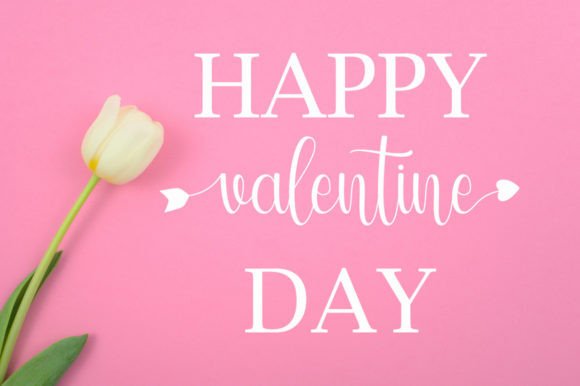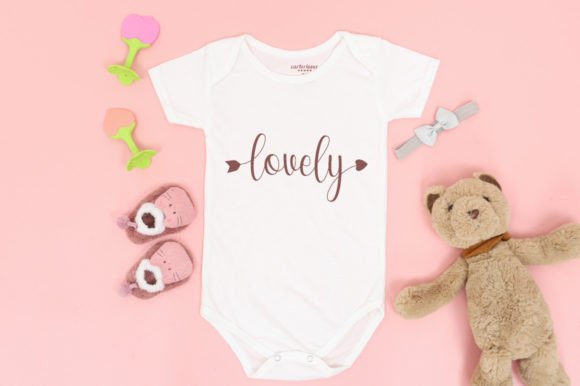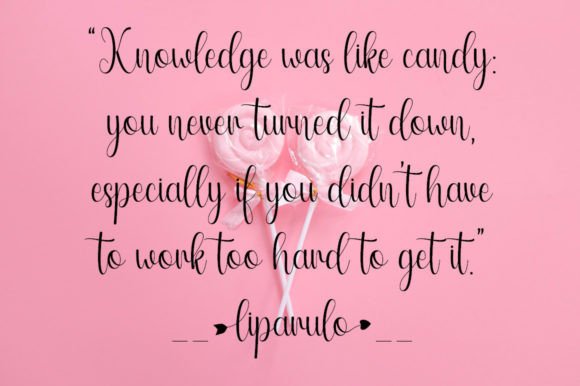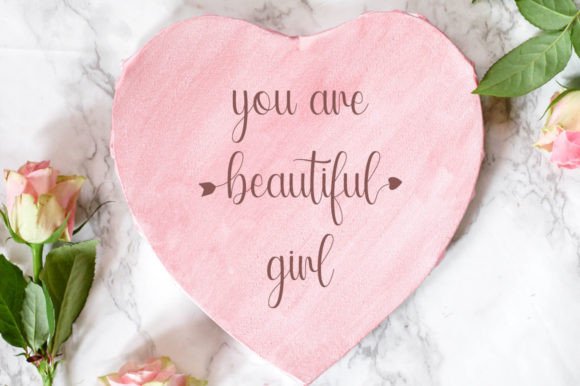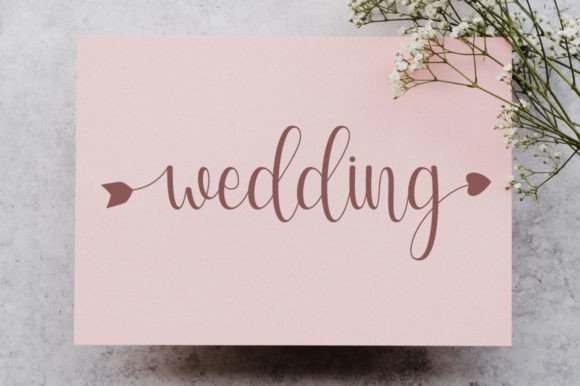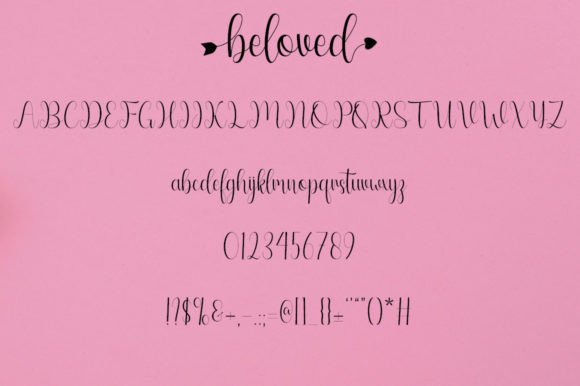
The Beloved Font: A Timeless Romantic Handwritten Style
I’ll never forget the moment I fell in love with the Beloved font. I was working on a project for a client who wanted a romantic, vintage-inspired design for their wedding invitations. I had spent hours scouring the internet for the perfect font, but nothing seemed quite right. That was until I stumbled upon Beloved. Its incredibly distinct and timeless style instantly captured my heart, and I knew I had found the one.
So, what makes Beloved so special? Let’s dive into the good stuff and a few quirks to keep in mind.
- ✨ Unique and distinctive style that’s sure to turn heads
- ✅ Elegant, cursive script perfect for romantic designs
- 💕 Beautifully crafted to evoke a sense of nostalgia and timelessness
- 🎉 Highly versatile and can be used for a variety of projects, from wedding designs to branding and packaging
While Beloved is an amazing font, there are a few things to keep in mind:
- 🤔 Some letters may be a bit too ornate for very short phrases or titles
- ⚠️ May not be the best choice for body text or long blocks of writing due to its cursive nature
- Experiment with OpenType features, such as swashes and stylistic alternates, to add some extra flair to your design
- Browse through the available glyphs, swashes, and stylistic alternates to customize your text
The Story Behind Beloved
While the origins of Beloved are shrouded in mystery, it’s said that the font was inspired by classic, romantic scripts from the 18th century. The designer, a lover of vintage typography, sought to create a font that would evoke a sense of timelessness and elegance.
Q: Is Beloved suitable for body text?
A: While Beloved is a beautiful font, it’s not ideal for long blocks of body text due to its cursive nature. It’s best used for titles, headings, or short phrases.
Q: Does Beloved come with OpenType features?
A: Yes, Beloved includes a range of OpenType features, such as swashes, stylistic alternates, and glyphs, which can be accessed in compatible design software.
Q: Is Beloved easy to read?
A: Beloved is a cursive font, and while it’s beautiful, it may not be the most readable font for very short phrases or titles. However, it’s perfect for designs where aesthetics are a top priority.